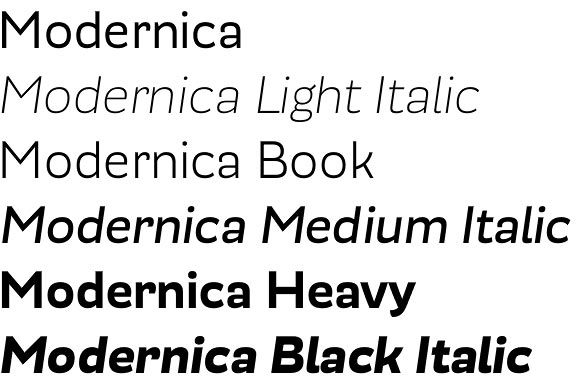
Modernica font
Modernica font by Javier Quintana (Latinotype foundry) is a Sans-Serif typeface family combining Grotesque and Geometric features. The family comes in 8 weights (from Thin to Black) with the matching italics. Modernica font family is a versatile type instrument including a wide range of OpenType features: small caps, ligatures, contextual alternates, modern and old style figures, superscript and subscript, numerators and denominators, etc.
Modernica font family is a further development of the Mazurquica family (selected in the Tipos Latinos 2012 biennial), a condensed Grotesque typeface designed for impact headlines. Modernica goes beyond the Grotesque style, obtaining some Geometric-specific features thus looking more fluid and ‘friendly’ but solid and ‘serious’ at the same time. Modernica look excellent in headings, and has good legibility in massive text. A modern and contemporary typography panacea.
Javier Quintana is type designer from Santiago of Chile. His fonts Berenjena and Mazúrquica were selected at Tipos Latinos 2012 biennial.